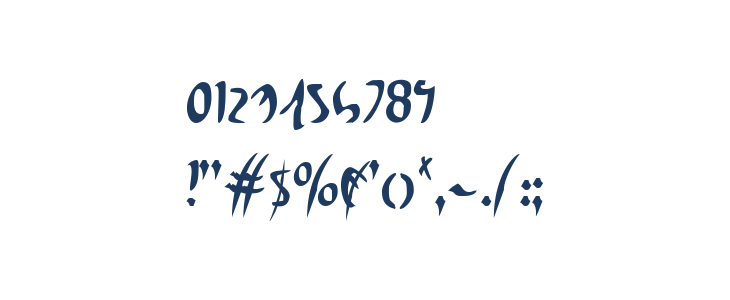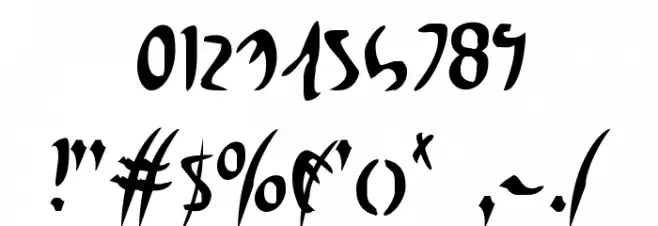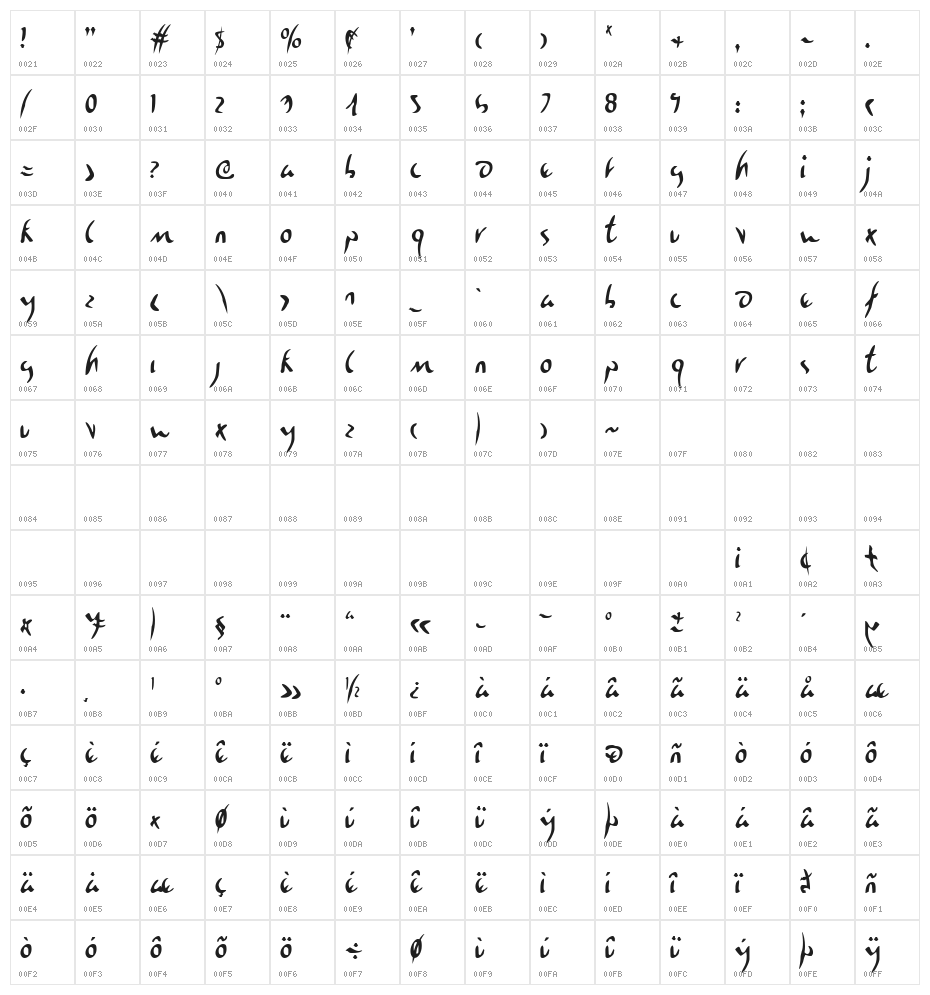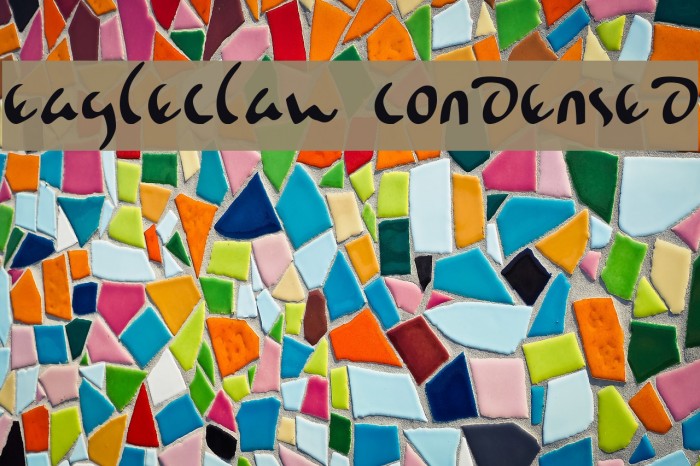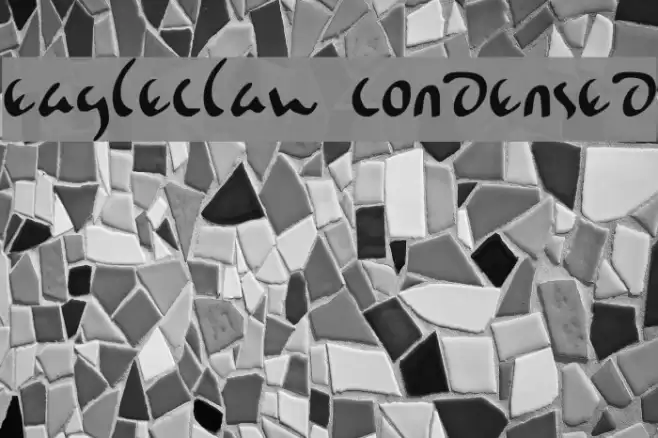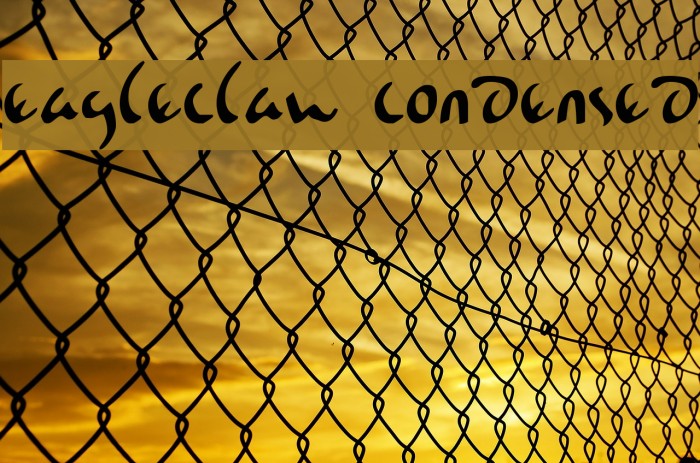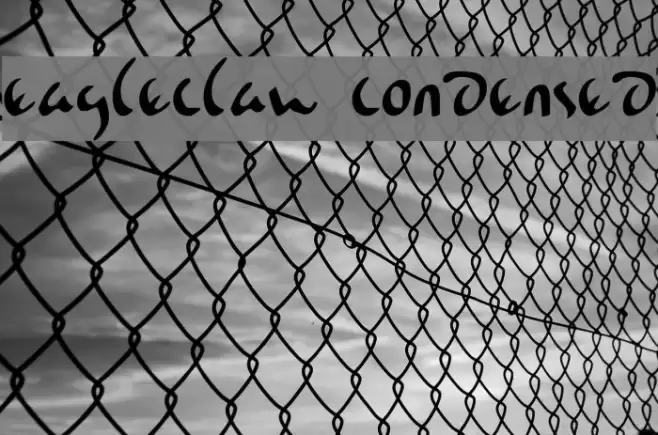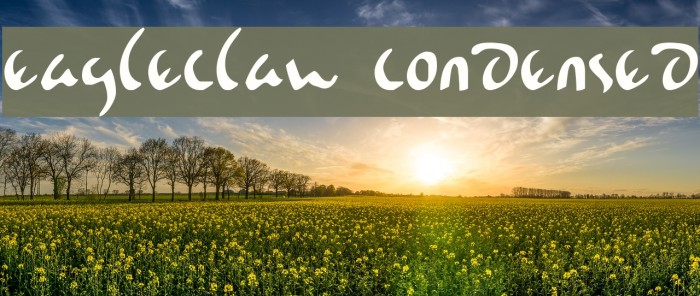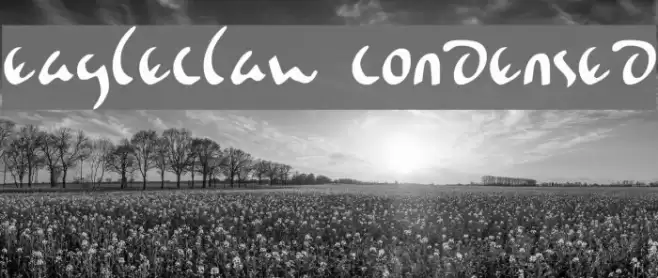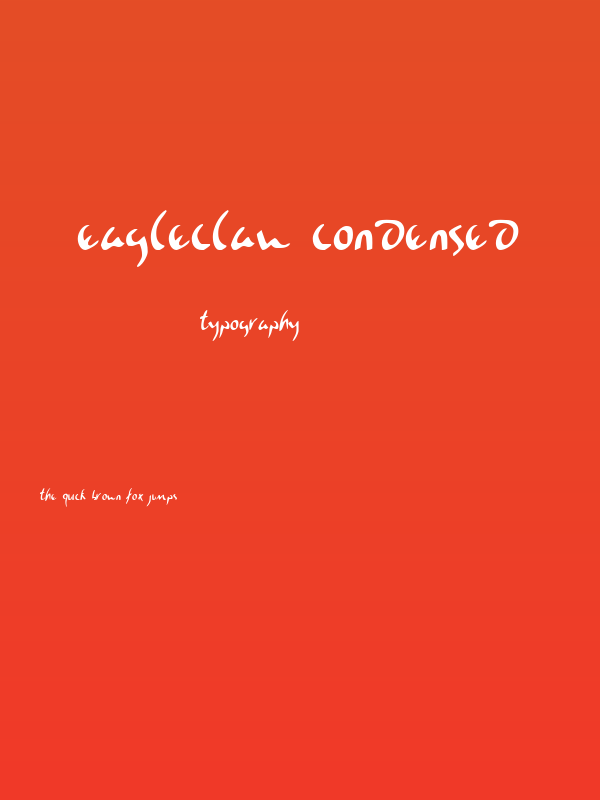
Eagleclaw Condensed Font
Eagleclaw Condensed Description
This font features a dynamic and expressive style, characterized by its fluid, brush-like strokes that convey a sense of movement and energy. The letters are condensed, giving them a compact appearance, which enhances their bold and impactful presence. The uppercase and lowercase letters maintain a consistent style, with sharp angles and smooth curves that create a harmonious balance. The numbers and special characters follow the same aesthetic, ensuring uniformity across all elements. This font's unique design makes it stand out, offering a modern twist on traditional calligraphy.